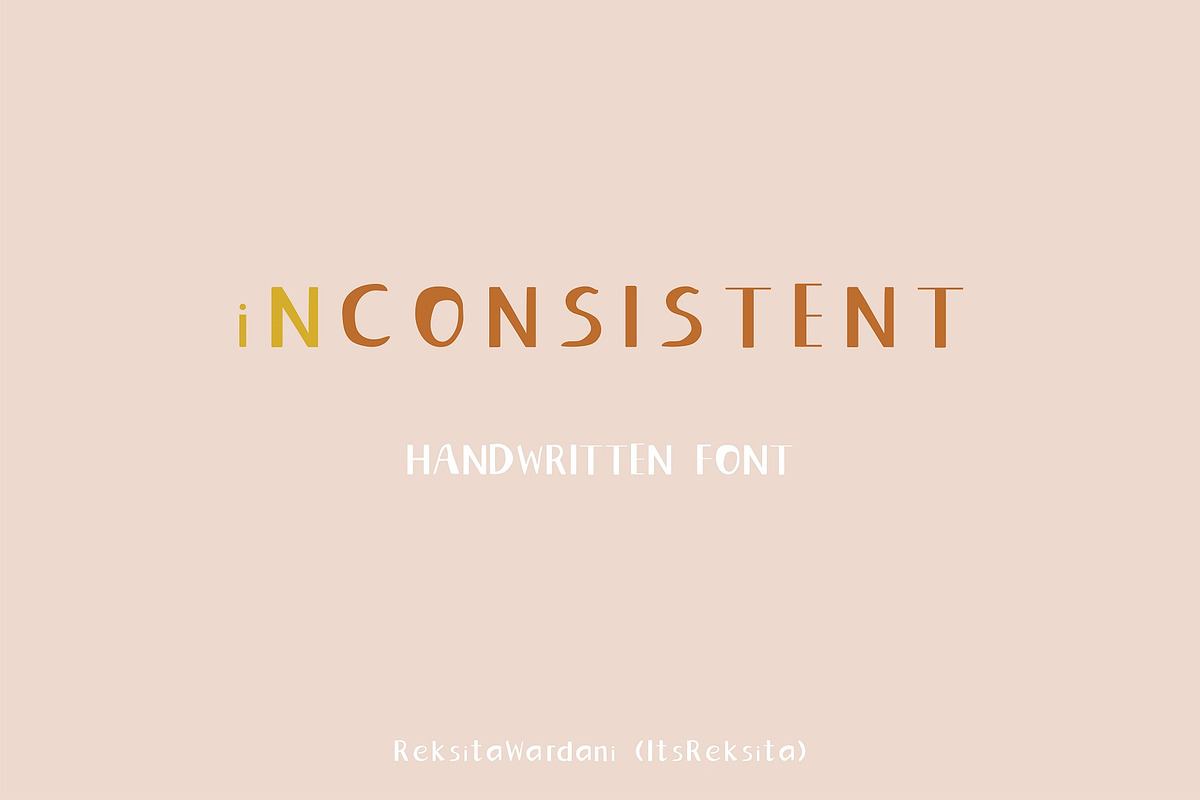
Inconsistent Handwritten Font brings a unique and artistic flair to your designs. Perfect for personal projects, greeting cards, and creative branding, this font adds a touch of personality and charm to any project. Download Inconsistent Handwritten Font Free Download today and give your designs an authentic handwritten feel!